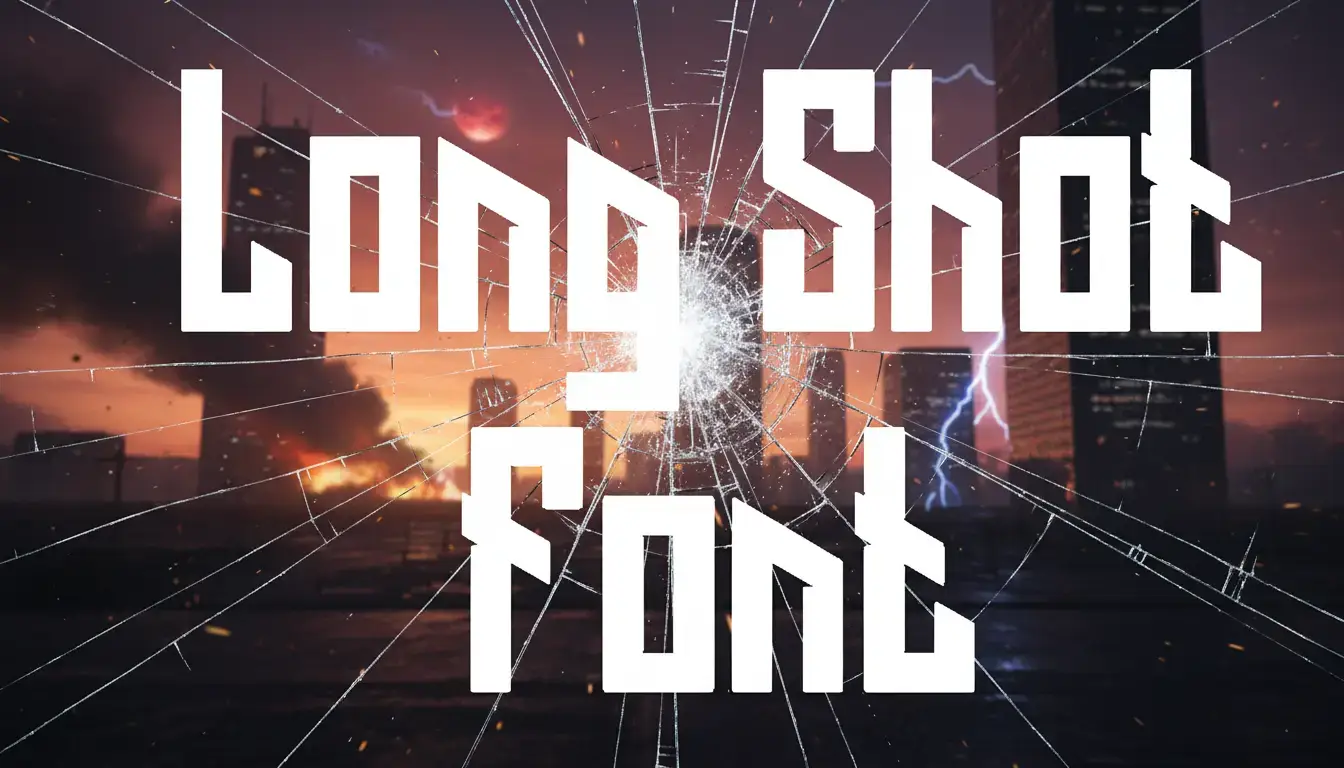
Long Shot Font
Long Shot
Long Shot is a gothic font created by Matty De Cesare. Sharp, dark and dramatic, it follows the blackletter tradition of old European manuscripts. It's a free download, and you can try it with your own text in the preview above first.
With complete upper and lowercase letters and all ten digits, Long Shot is ready for real wording, not just a single headline. Everyday marks like !, ?, @ and # are there too. It has 1 accented letters, but not the full set for Spanish or French, so test any non-English words first.
Long Shot is a natural fit for tattoos, metal band logos and dark fantasy titles. Blackletter is very hard to read in all caps, so type in normal upper and lowercase.